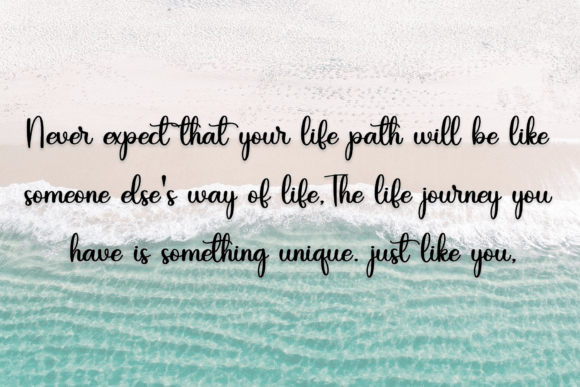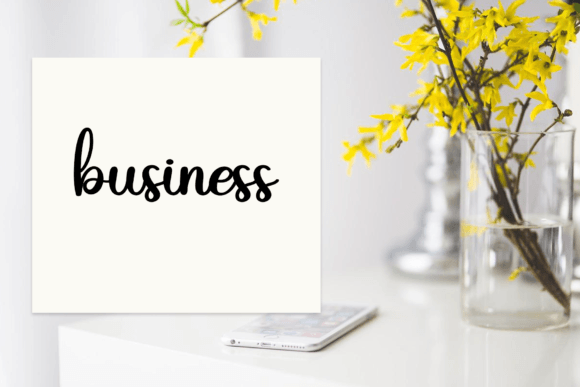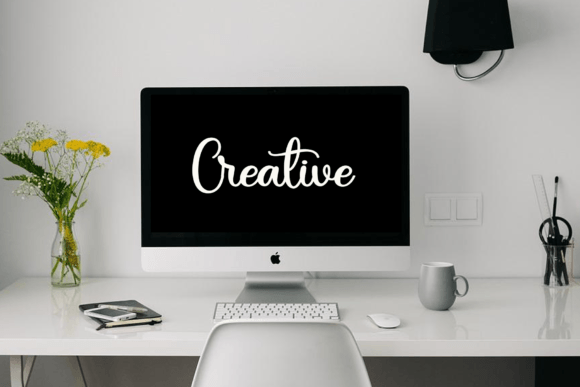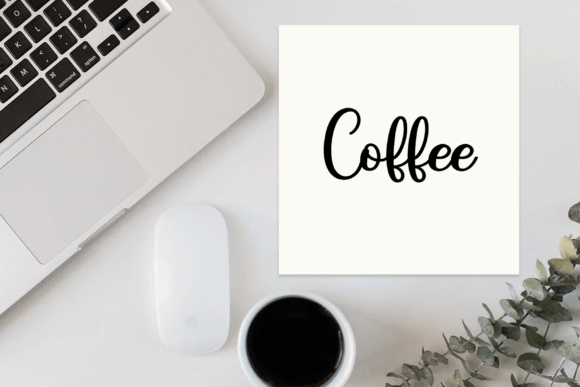
Unleash the Charm of the Coastline in Your Designs
Have you ever found yourself daydreaming about a perfect summer day at the beach, the sound of waves gently crashing against the shore, and the feeling of sand between your toes? That’s exactly the kind of creative moment that inspired the creation of the Beach Font – a delicate handwritten font designed to capture the essence of a carefree summer day.
The Beach Font is more than just a pretty face; it’s a versatile tool that can add a touch of whimsy to your letters, invitations, food products, titles, and more. Whether you’re a seasoned designer or a creative enthusiast, this font is sure to bring a smile to your face and inspire your next design project. With its unique, handcrafted feel, the Beach Font is a valuable addition to any designer’s toolkit.
- Unique Characteristics: The Beach Font features a distinctive, hand-drawn style with a relaxed, casual feel, making it perfect for beach-themed designs, summer projects, and tropical-inspired branding.
Designer Review: Beach Font
Overall, I think Beach Font is a fun, laid-back font that’s perfect for summer vibes or tropical-themed projects. ✨ Here are some things that work well:
- Unique, beachy feel that’s perfect for summer projects
- Good for use in titles or headings where you want to add a touch of whimsy
- Works well in digital formats, such as web or mobile apps
However, there are some limitations to keep in mind: ⚠️
- May not be suitable for formal or professional projects
- Could be difficult to read in smaller sizes or at a distance
- Not a good choice for body text or large blocks of text
Overall, I think Beach Font is a great choice for projects that need a fun, carefree vibe. It’s perfect for summer-themed projects, such as vacation planners or beach-inspired websites. While it may not be suitable for every project, it’s a great addition to any designer’s toolkit.
Tips for Getting the Most Out of Beach Font
Use the Beach Font to create a relaxed, casual atmosphere in your designs. Combine it with bright, pastel colors and fun graphics for a beachy vibe. Experiment with different font sizes and styles to create visual interest.
The Beach Font is perfect for designing beach-themed invitations, postcards, and social media graphics. It’s also great for creating a fun and playful atmosphere in your branding and marketing materials.